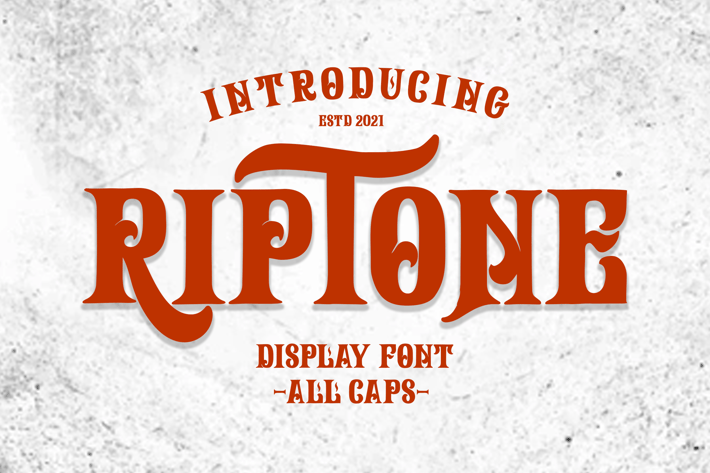
Riptone - Display font
Riptone is a Display font. This font is great for your next creative project such as logos, printed quotes, invitations, cards, product packaging, headers, Logotype, Letterhead, Poster, Apparel Design, Label, and etc.
Riptone Font includes all caps Basic Characters, Alternates, Numbers and Punctuation.